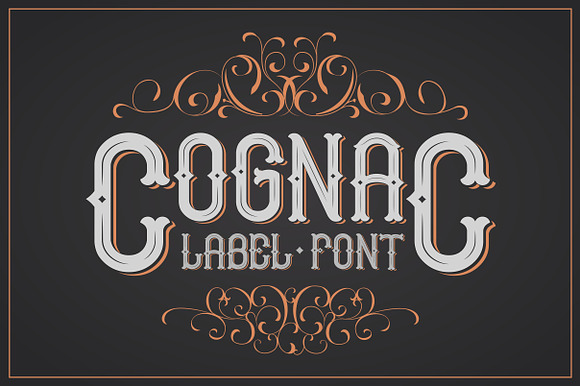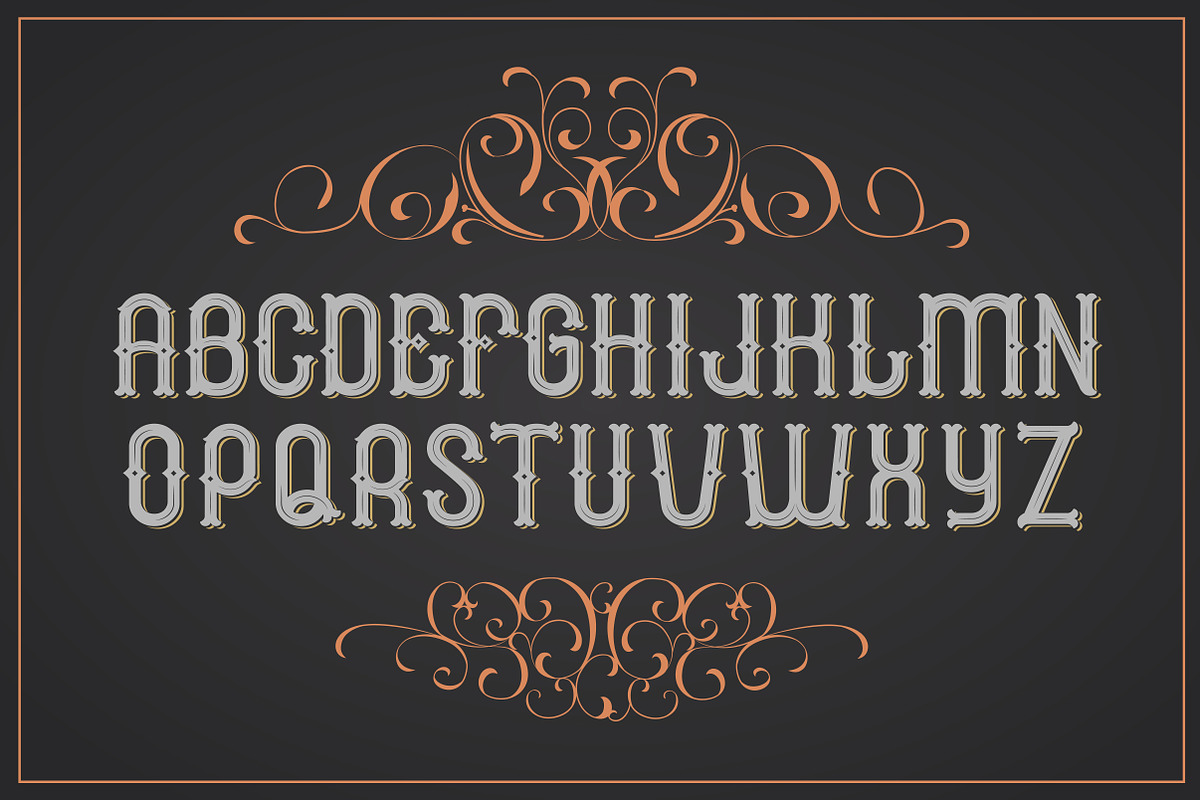
Cognac. Font for label
Vintage label font. Cognac label style
- COGNAC Regular
- COGNAC Effiects
- COGNAC Shadow
Cognac. Font for label by Fractal fonts & graphics fits naturally into Branding, posters, packaging, typography.